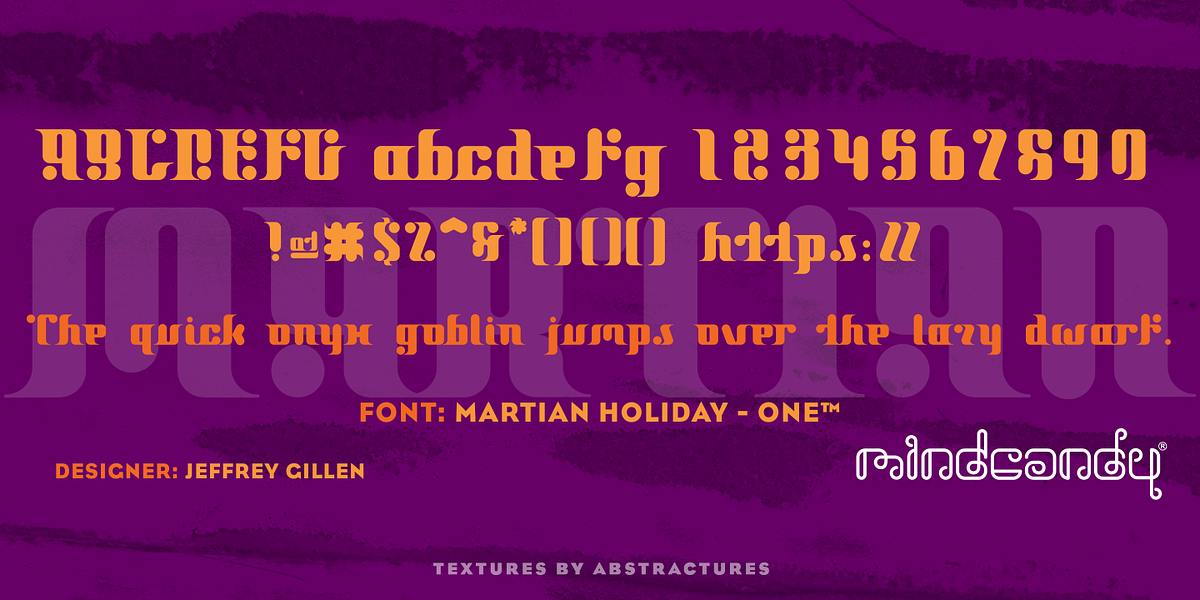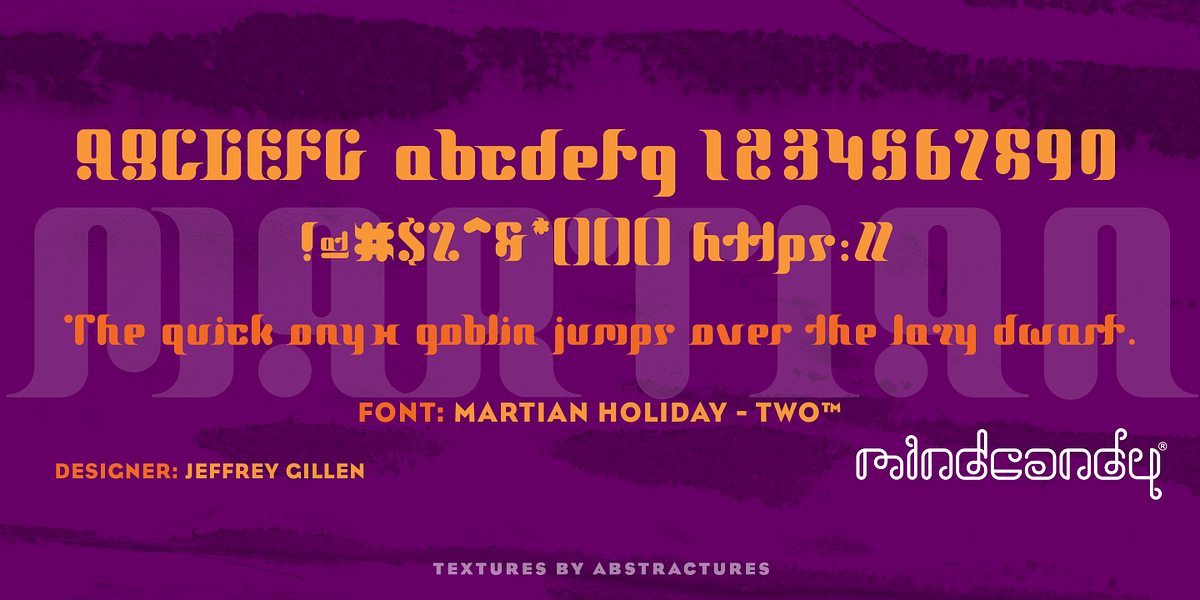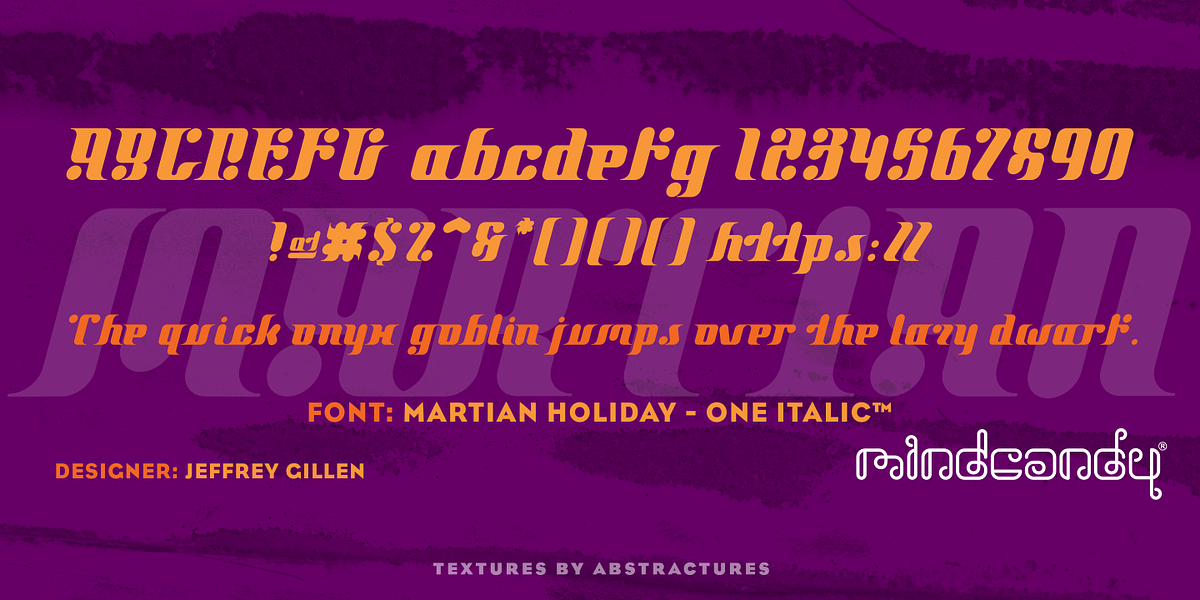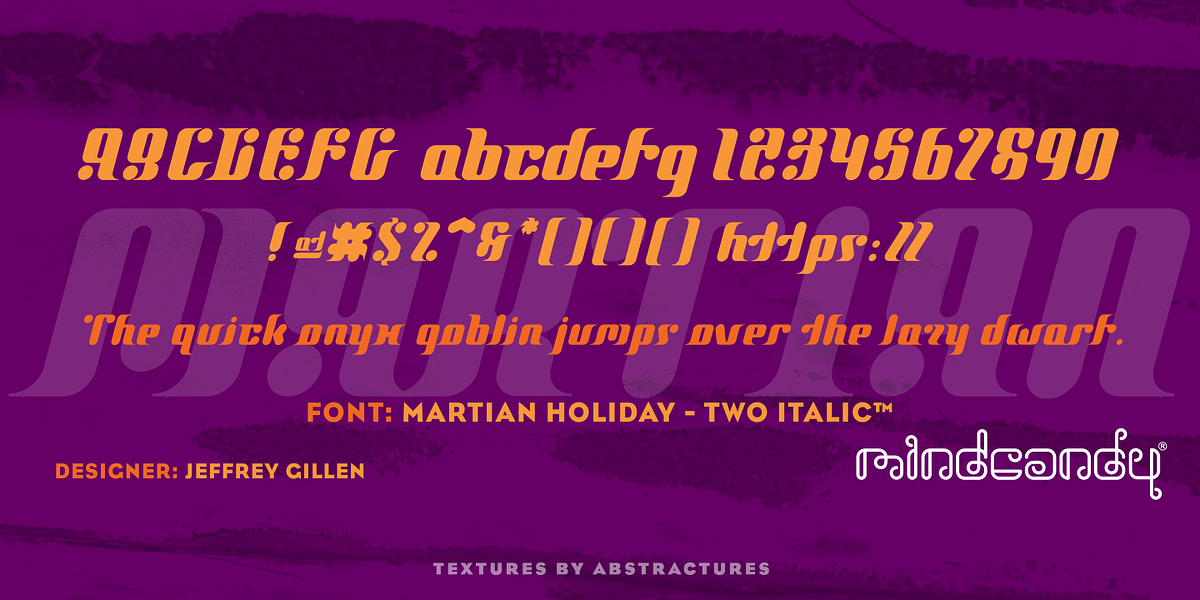
Martian Holiday™
This font is a bold, geometric stencil typeface. Its sharp angles and ball terminals create a futuristic aesthetic suitable for sci-fi themed projects.